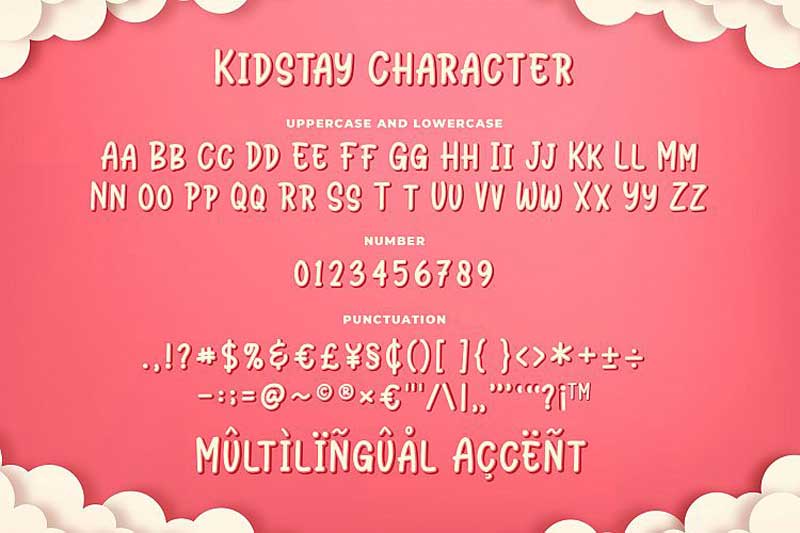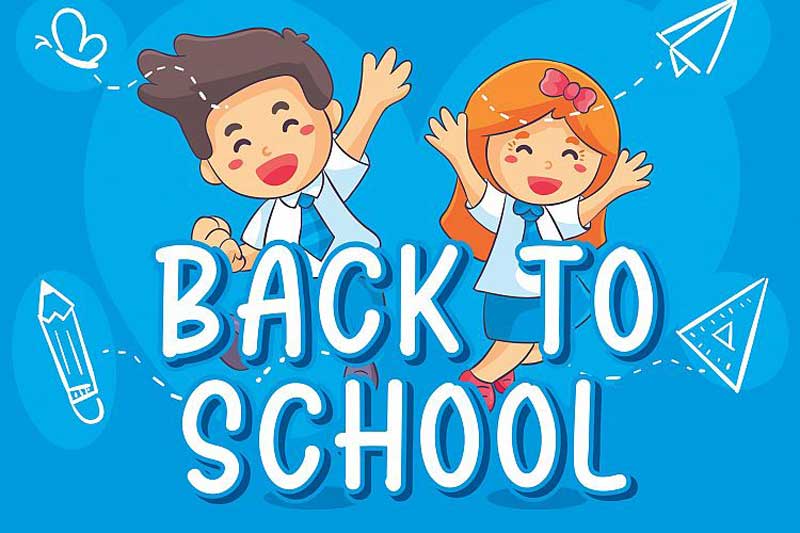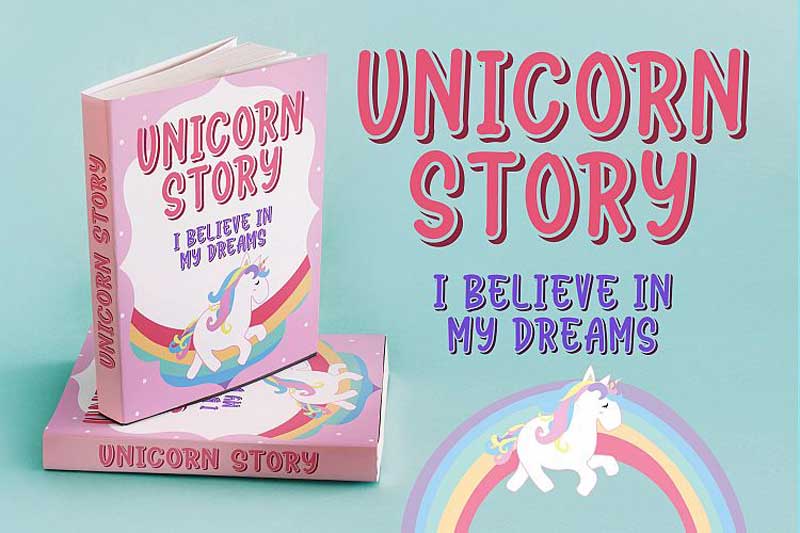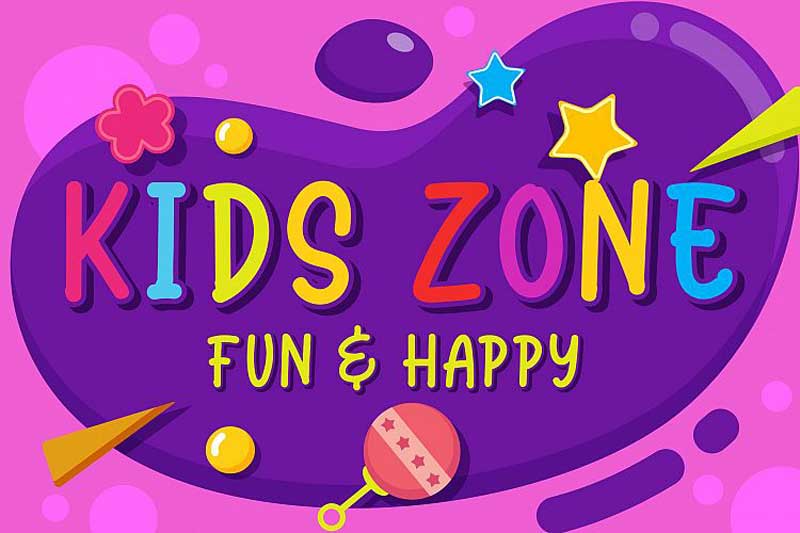
Kidstay – Layered Playful Font
Introducing our new product the name is Kidstay Layered Playful Font. Kidstay inspired by Kids style this font is a fun theme very good for display, branding, poster, logotype and etc
Main Features
• Uppercase
• Lowercase
• Number
• Punctuation
• Multilingual